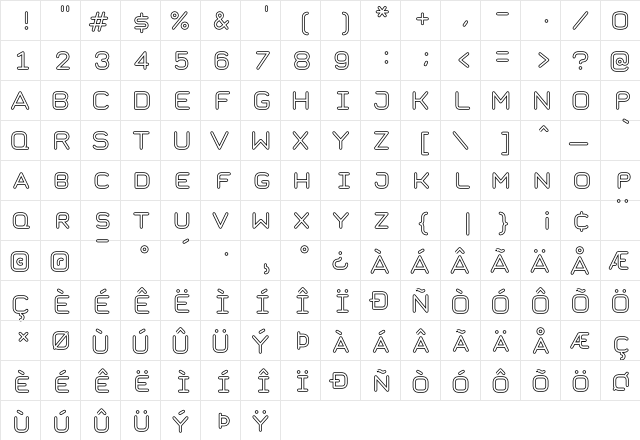
Taurus Mono Outline Regular
| Foundry | Tyler Finck |
| Designer | Tyler Finck |
Design Context for Taurus Mono Outline Typeface
Taurus Mono Outline is built around its visual character rather than neutral utility — its distinctive forms are designed to make an impression at display sizes.
Font Pairing: Pair with a clean neutral sans-serif for body copy to let Taurus Mono Outline's character lead without overwhelming the composition.
Pro Tip: Use Taurus Mono Outline exclusively at display sizes — it was designed to be seen, not read at length. Let a neutral companion handle body copy.